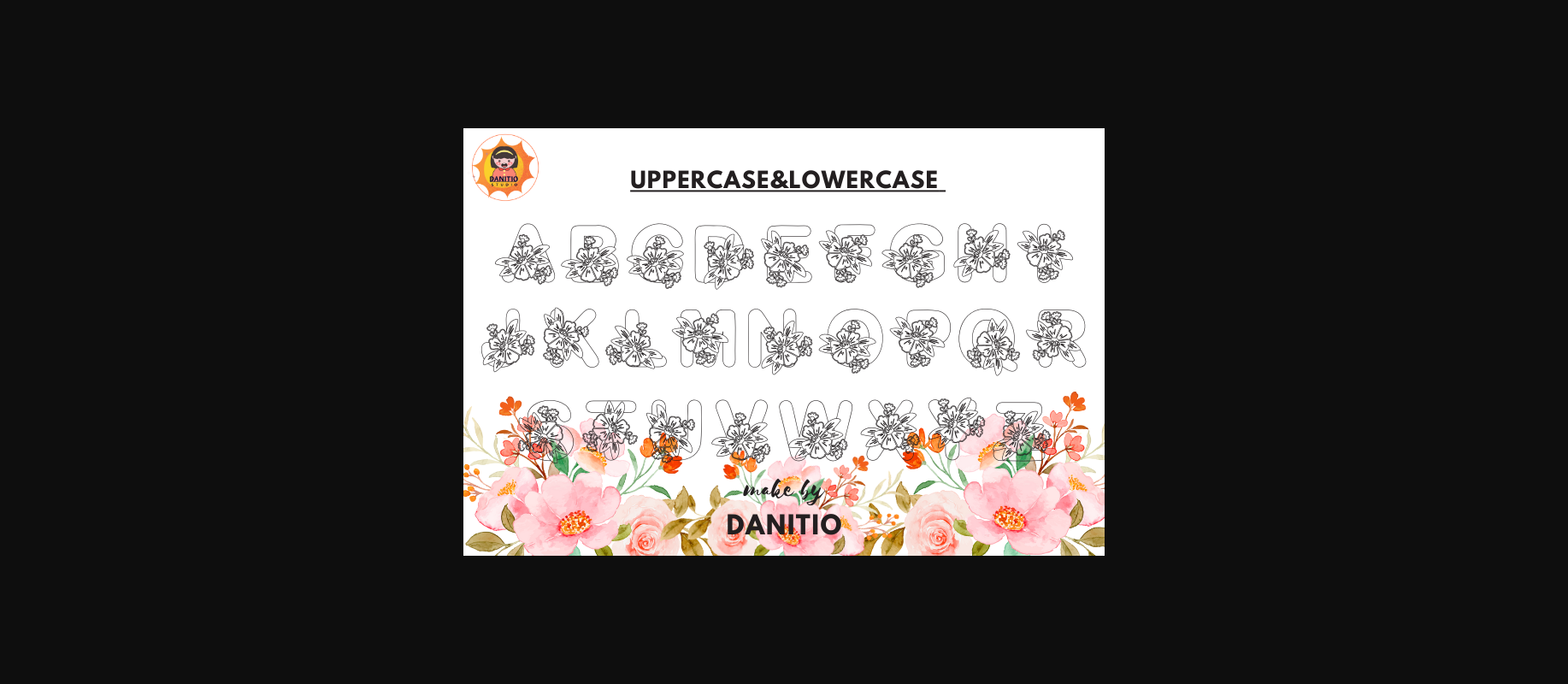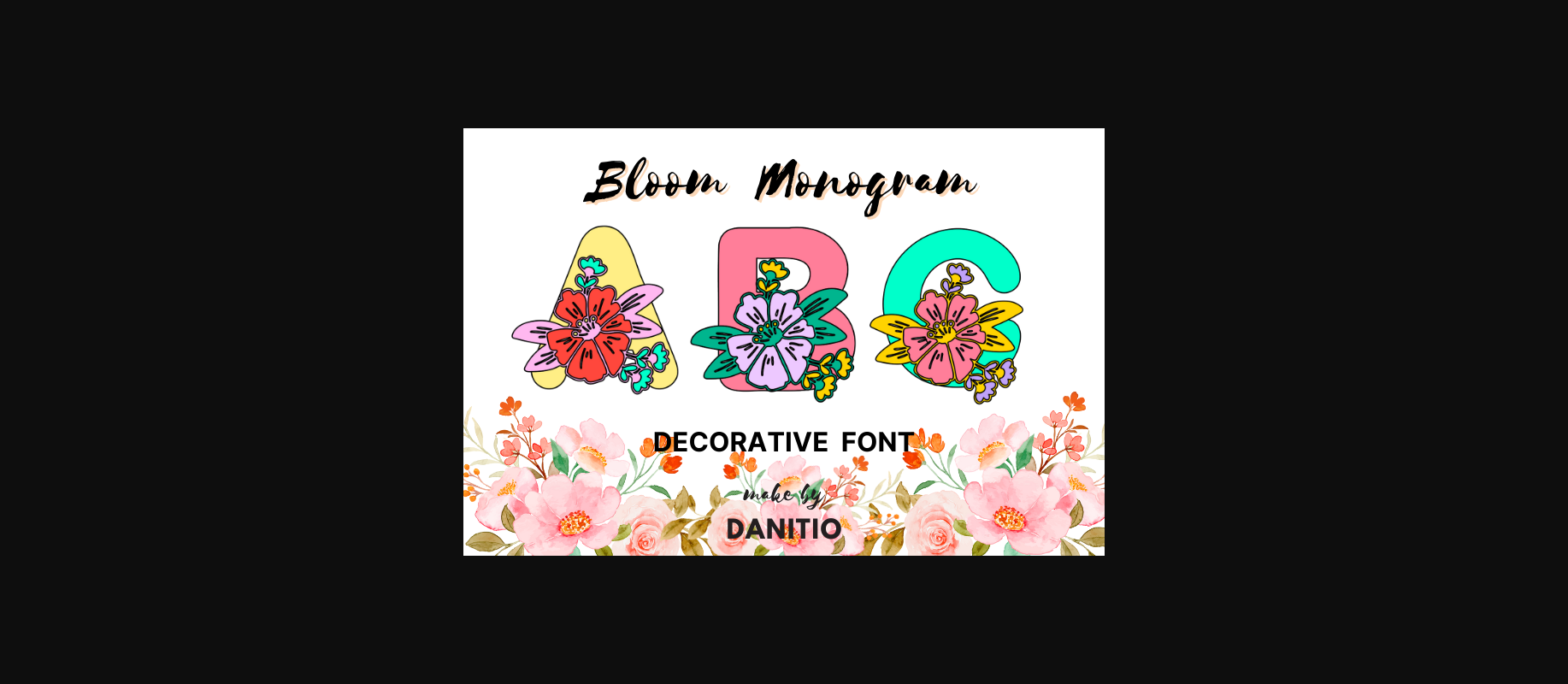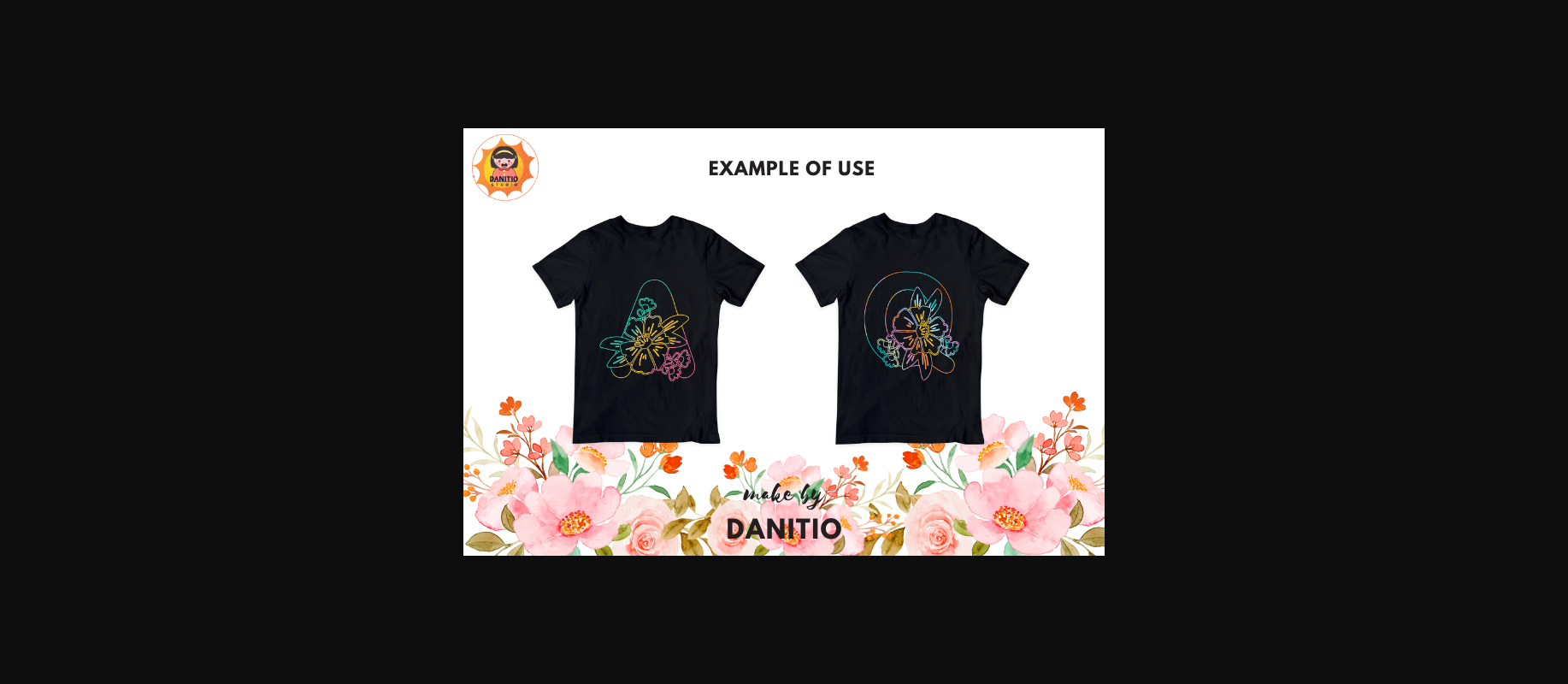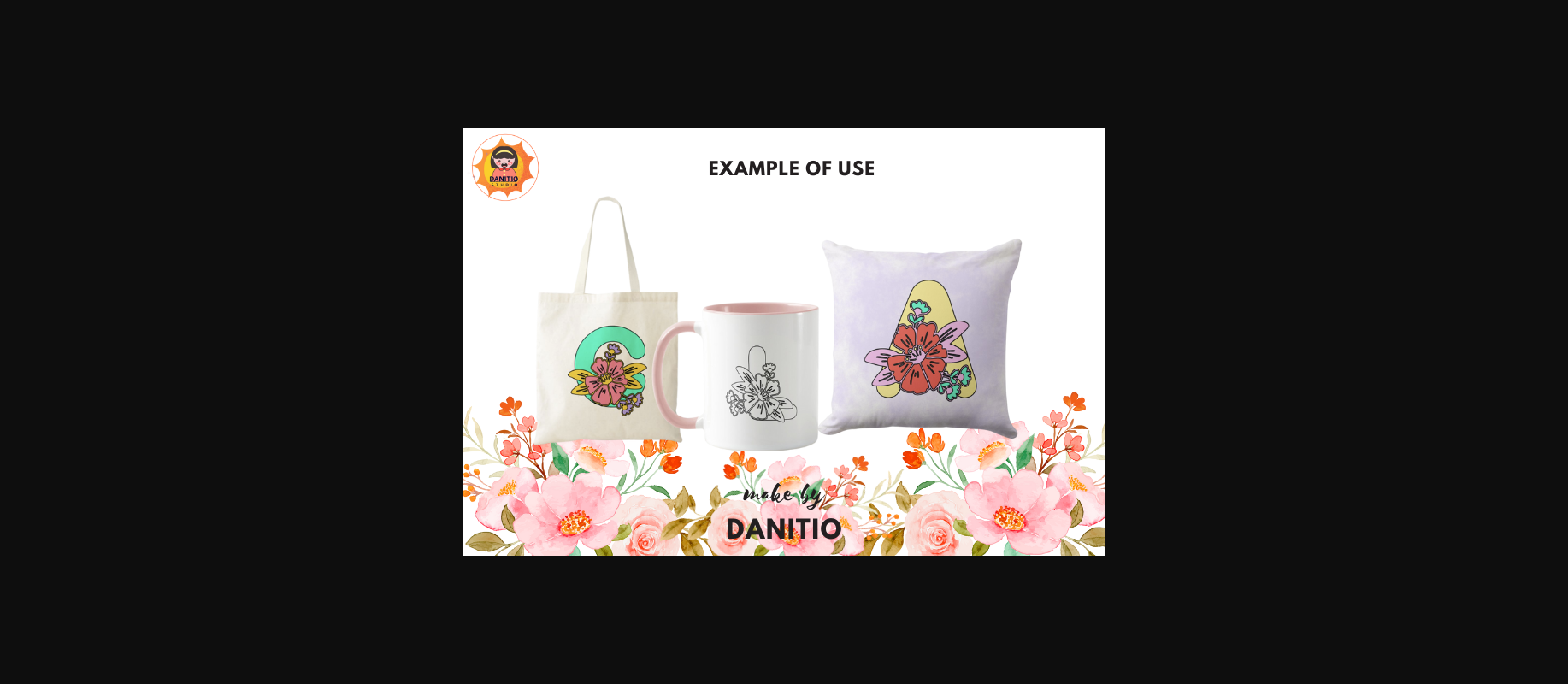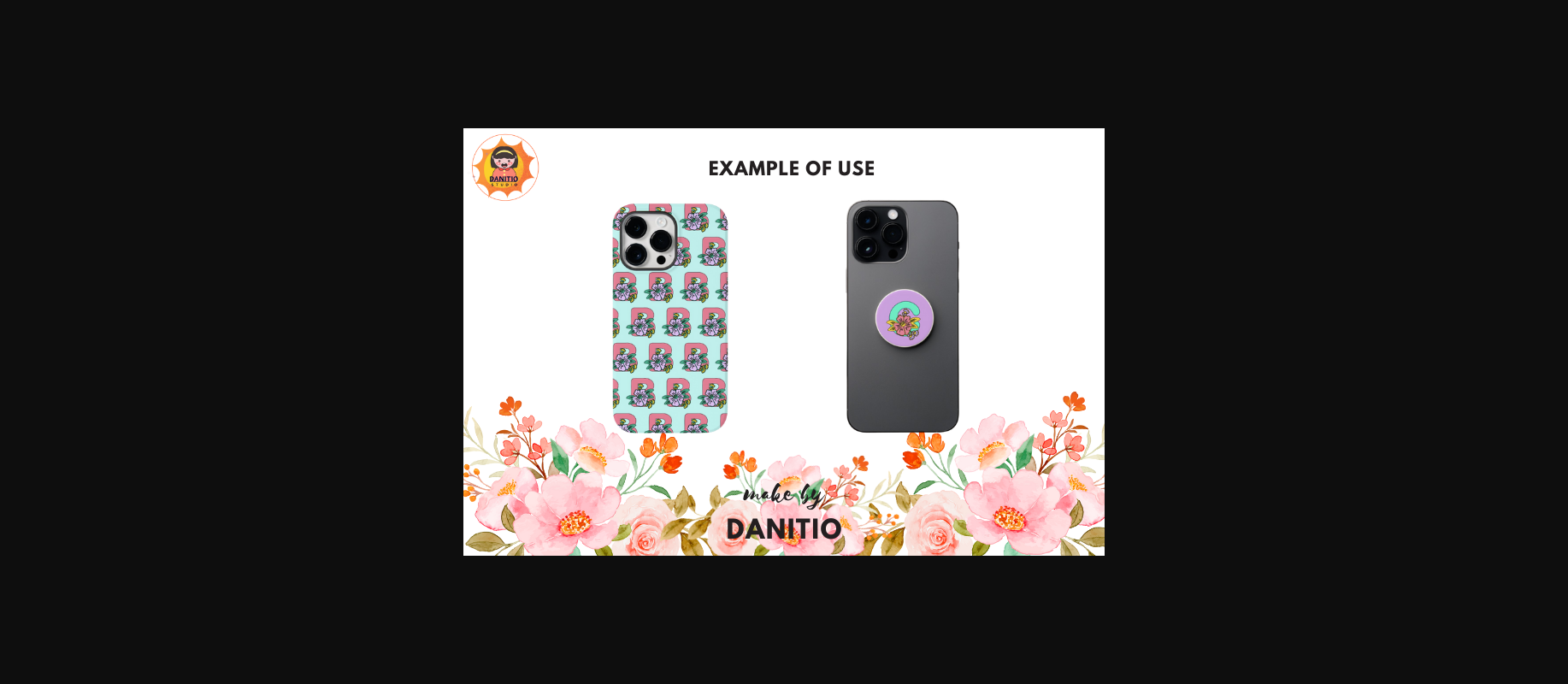
Bloom Monogram Font
About Bloom Monogram Font
Bloom Monogram is a delightful fusion of charm and whimsy. Its intricate floral motifs intertwine to create captivating monograms, bringing a touch of romance to any design. Ideal for personalized stationery, wedding invitations, or decorative projects, Bloom Monogram infuses every character with blooming elegance and grace.